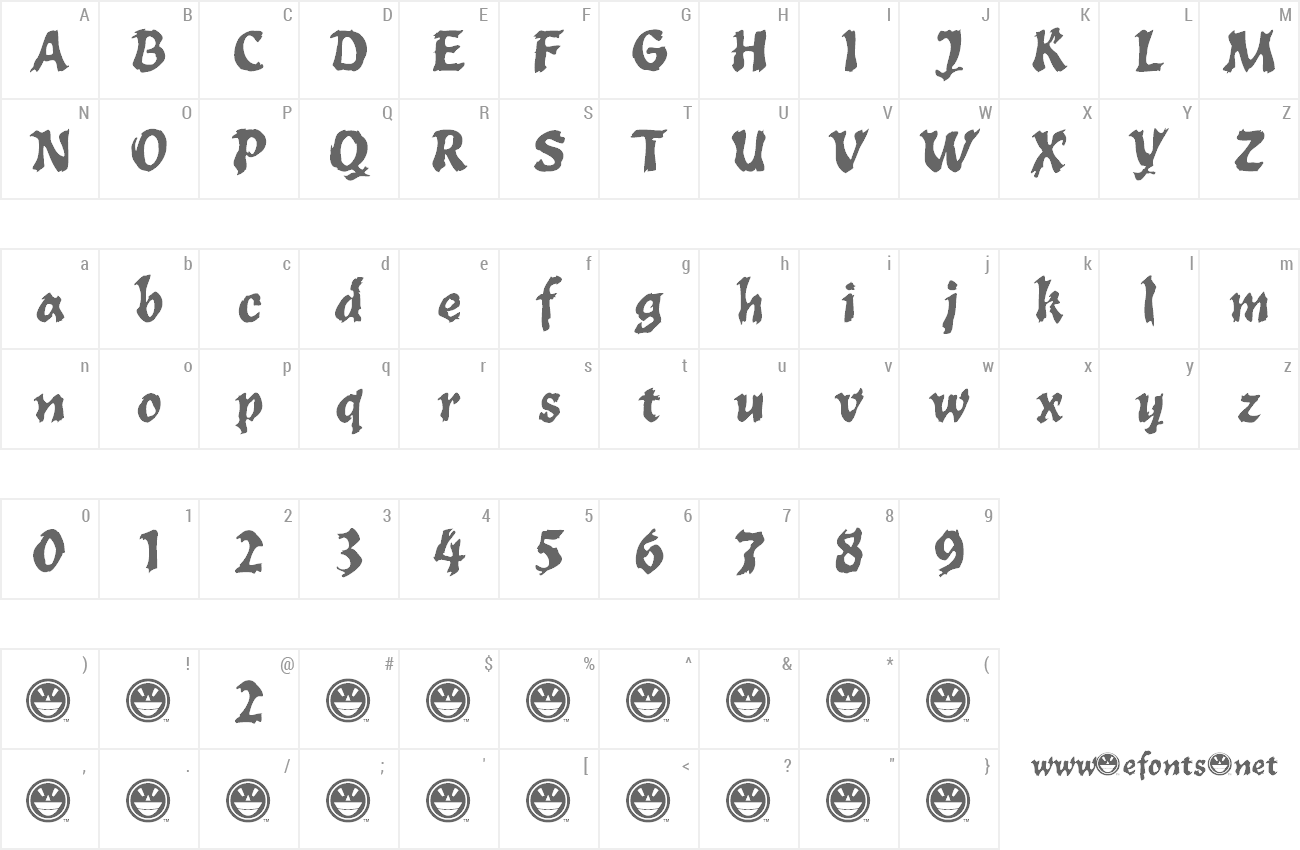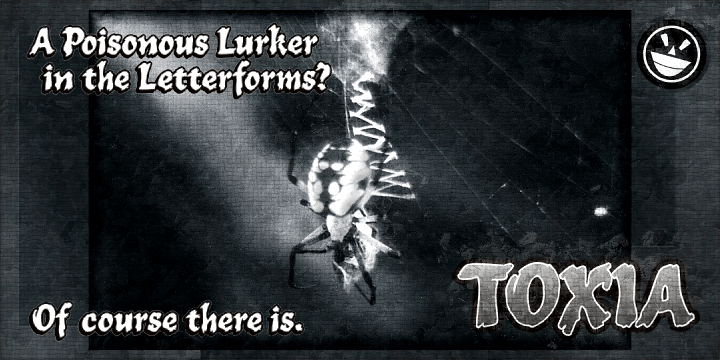
Preview and download Toxia Font. Created by Fontry in Fancy Horror styles with Free for personal use license.
Toxia by Michael G Adkins Want something poisonous to hide in your letterforms. A bit dangerous and dripping wet as it clambers up out of the mire?? Try some Toxia. It's a brewed blend guaranteed to tighten your throat and leave you gasping no more. This is a LIMITED character freeware version of the commercial font, WILD1 Toxia. Honest font users who use this font commercially as downloaded are asked to donate $5 USD to paypal.com using the DONATE button on this page. A COMPLETE commercial version of this font is available at http://new.myfonts.com/fonts/fontry/wild1-toxia/ For more questions about commercial use or any other use of this font, please feel free to contact us for price, links and details at: the_fontry@yahoo.com or visit the Fontry website http://www.thefontry.com/ |